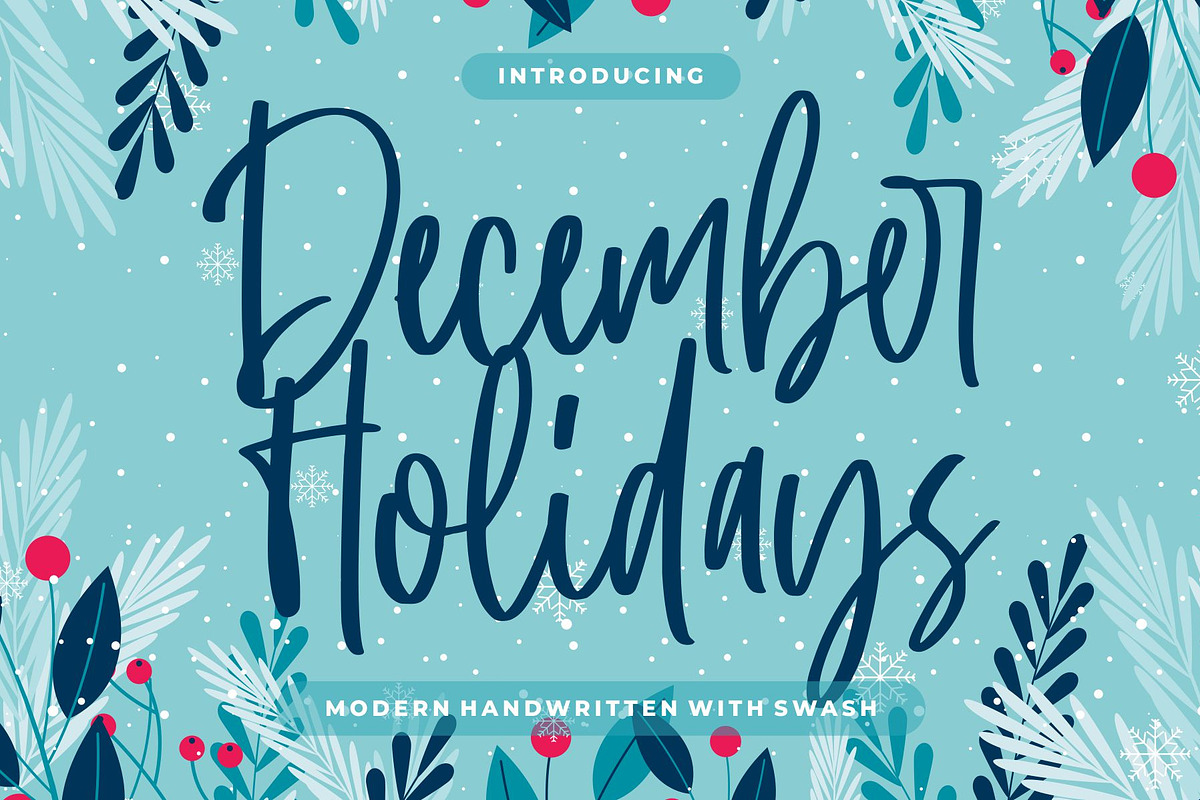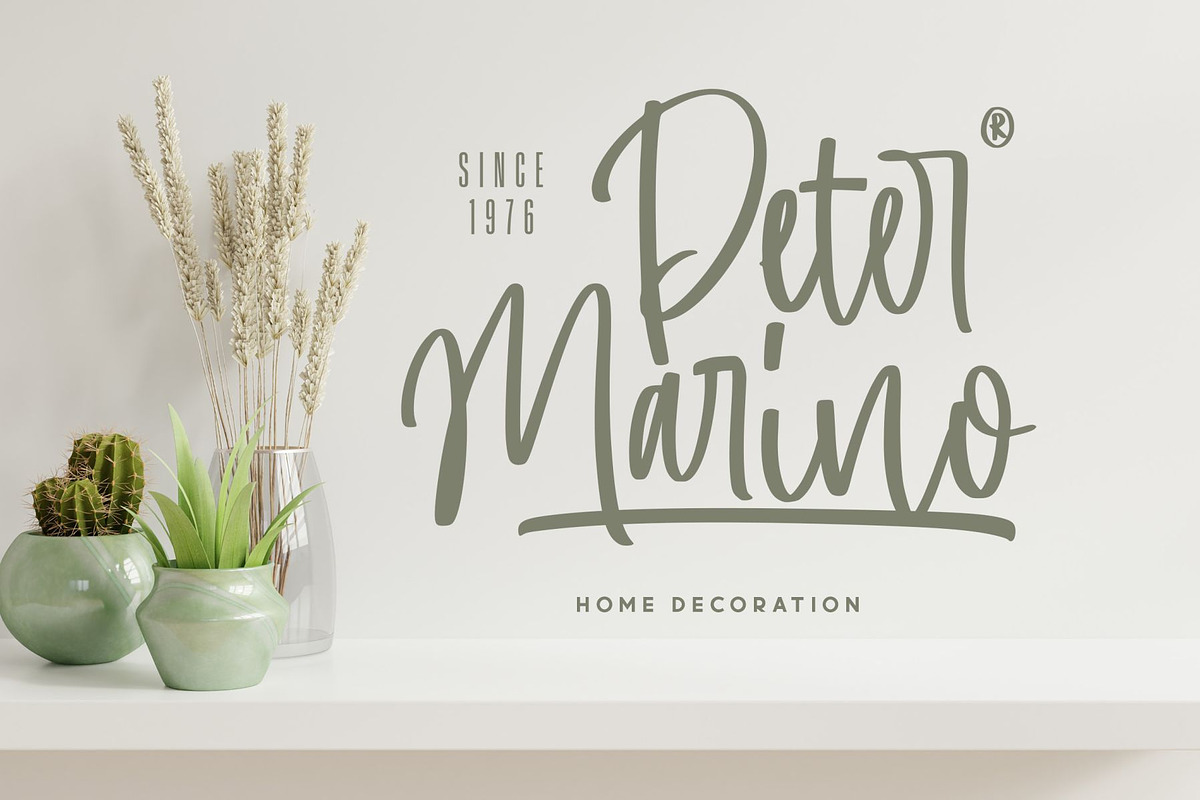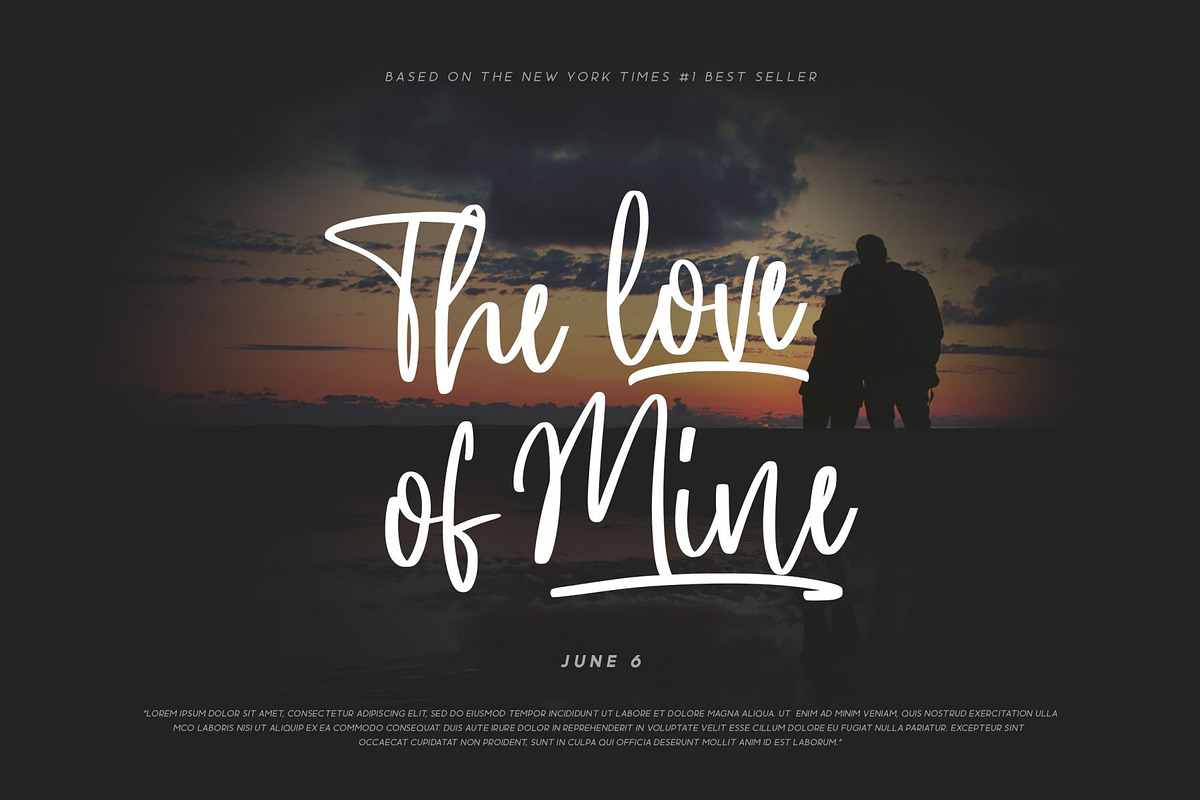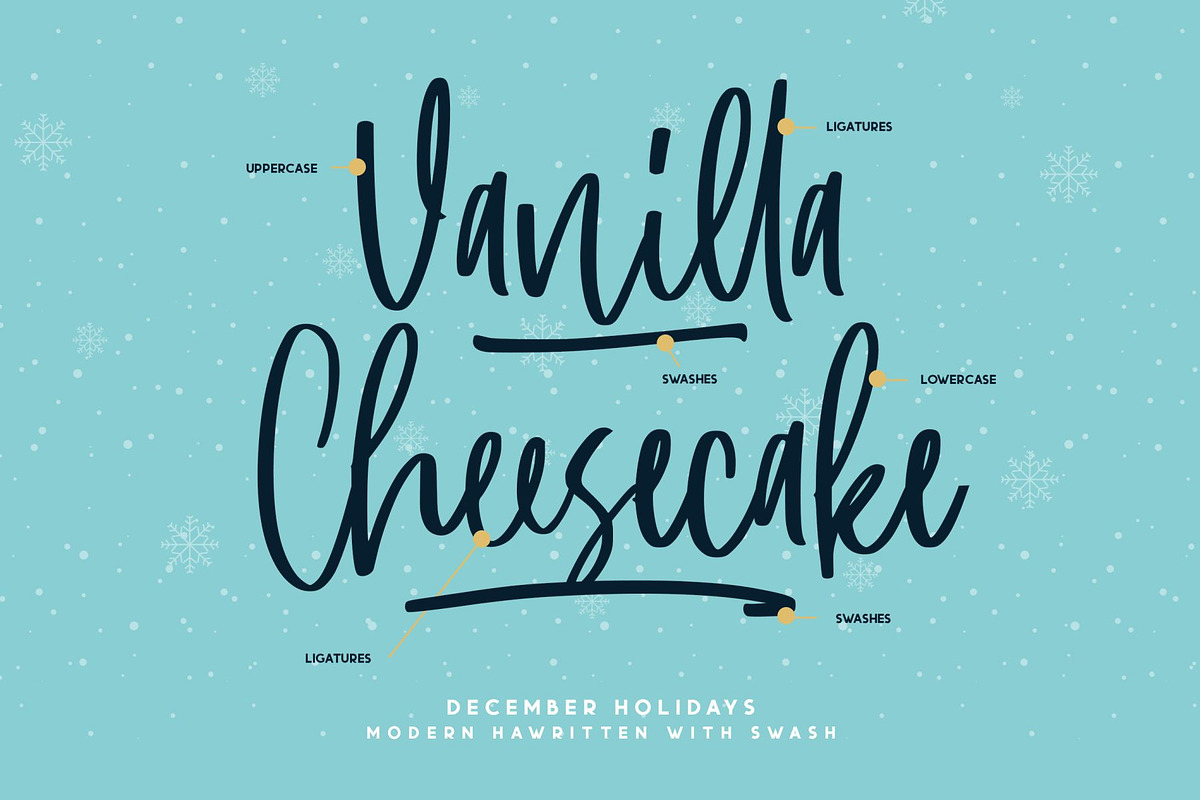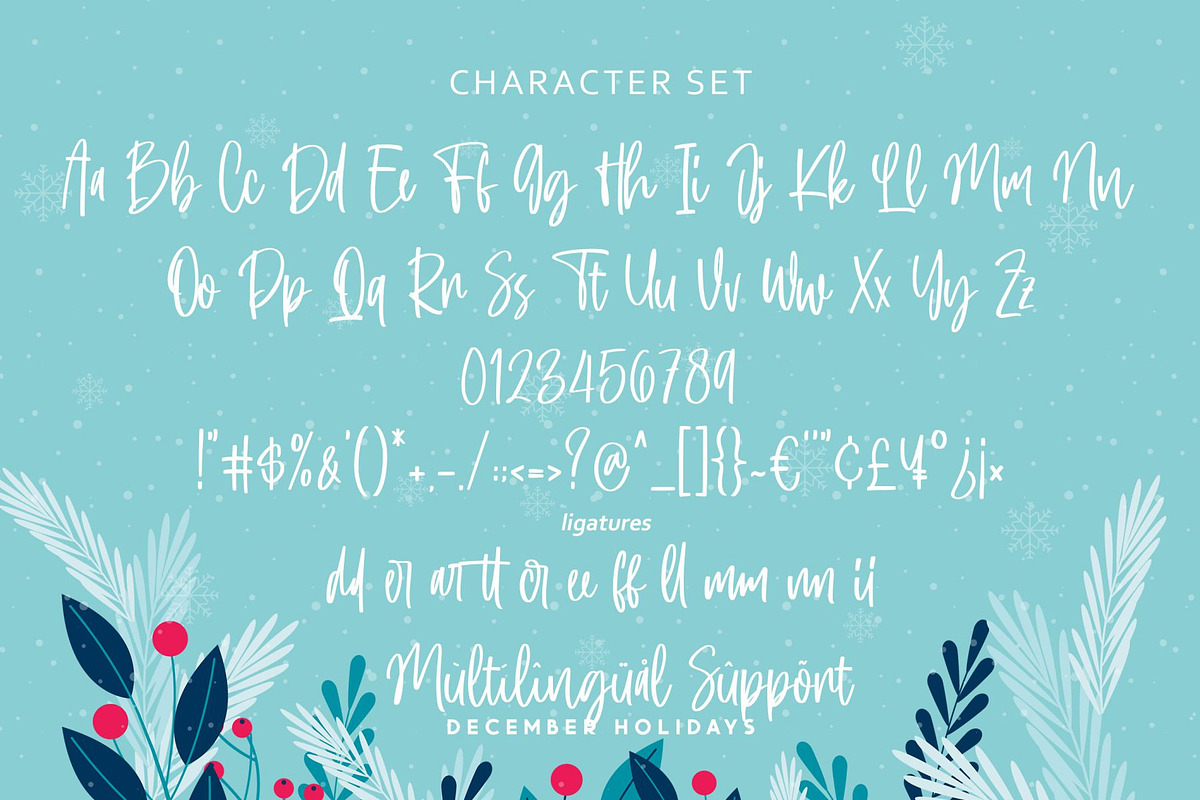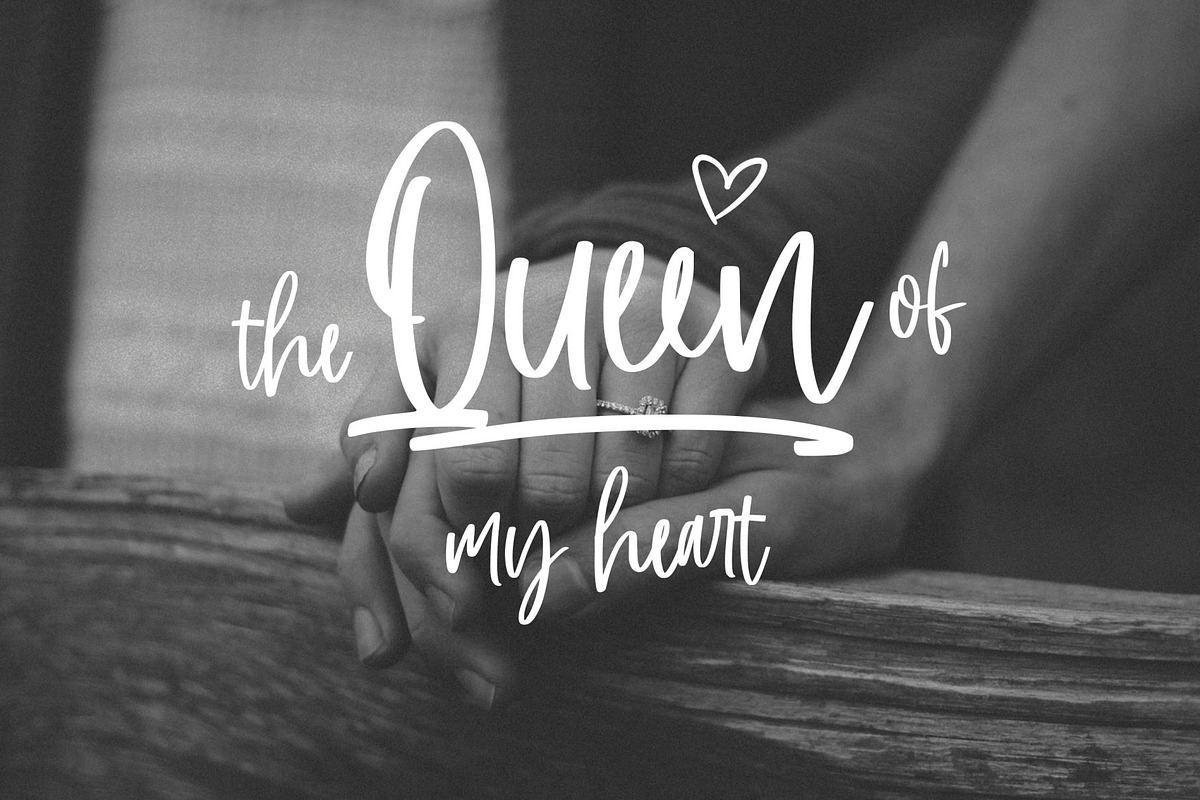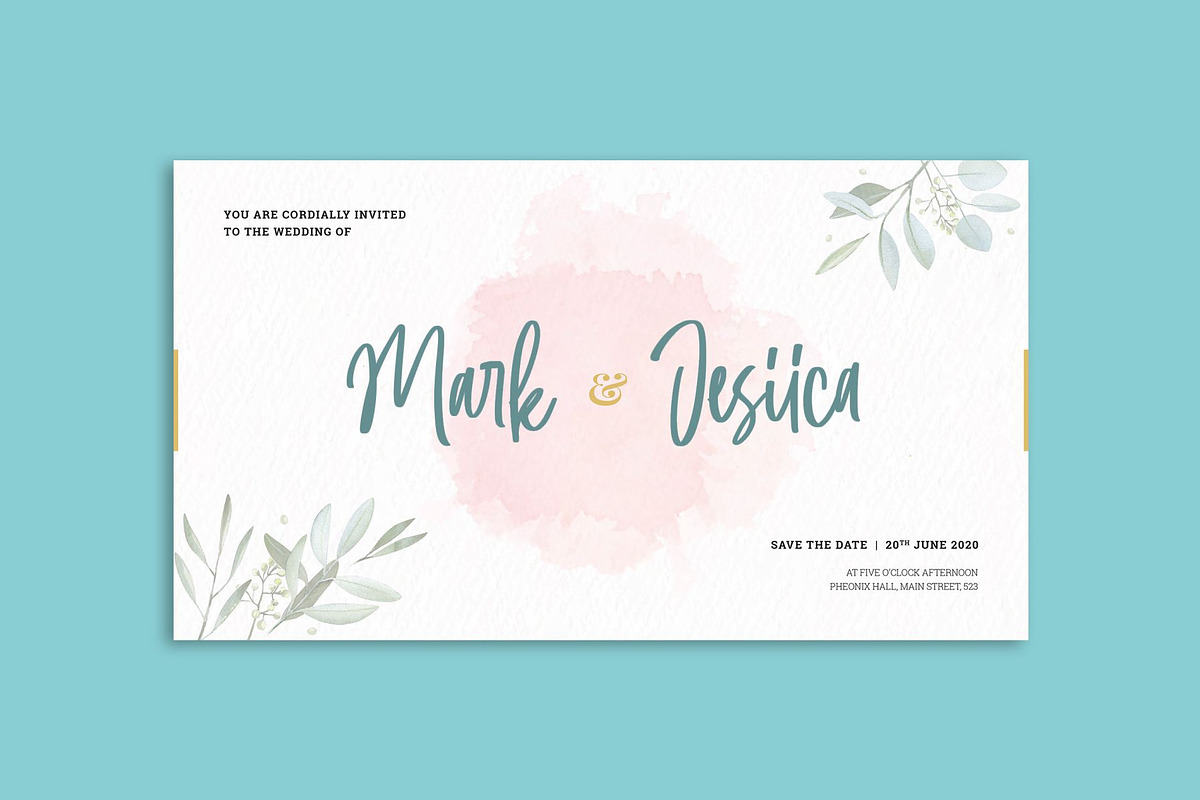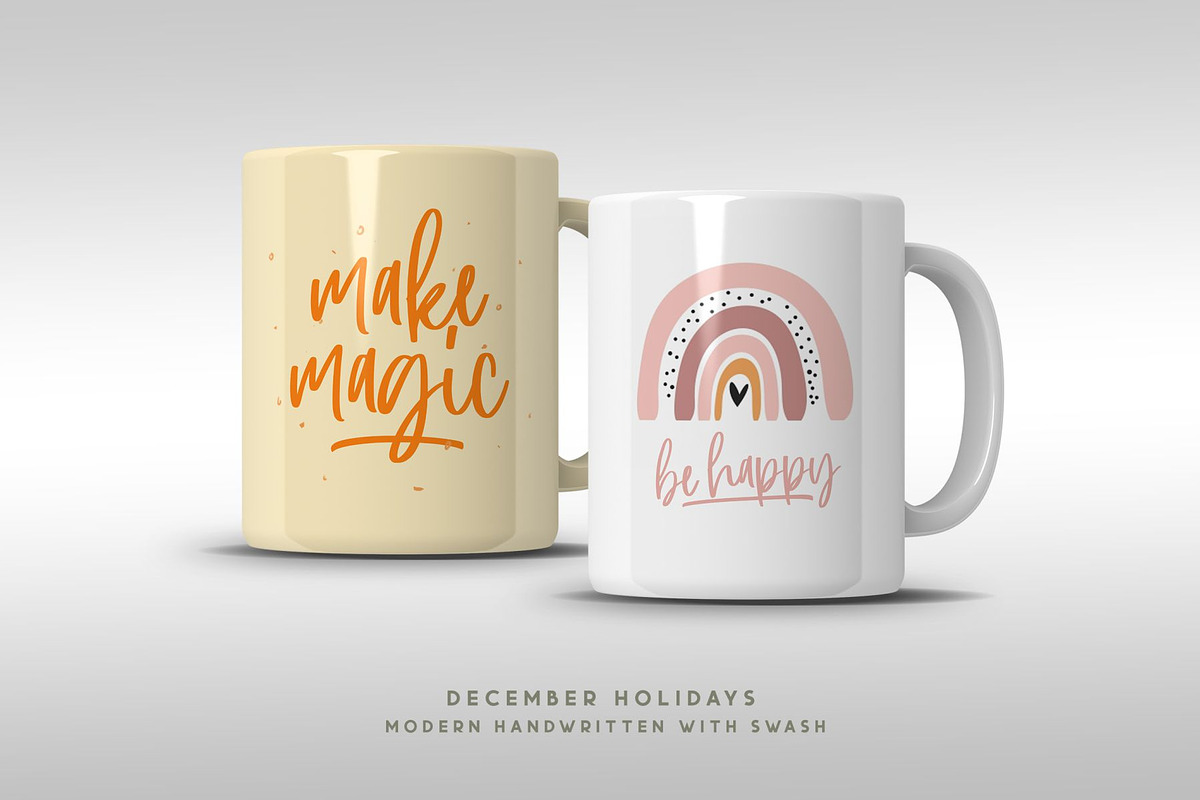
December Holidays
Introducing December Holidays
December Holidays a playfully display font make from handdrawn ideas in typeface. This font includes full of Alphabetical glyphs, Numerals, and punctuation. This is so perfect for invitations, monograms, wedding, fashion, branding, label, handdrawn or logotype.
- Very great for branding, logotype, handletteing, invitations, or fashion branding.